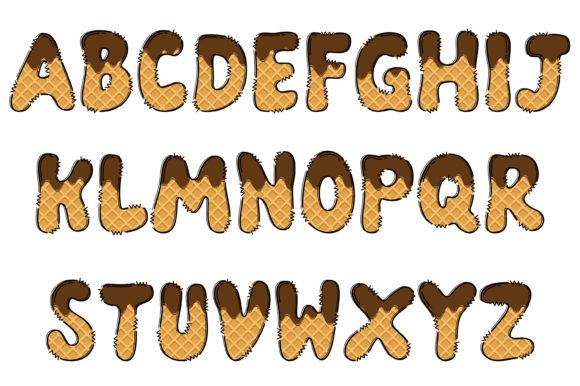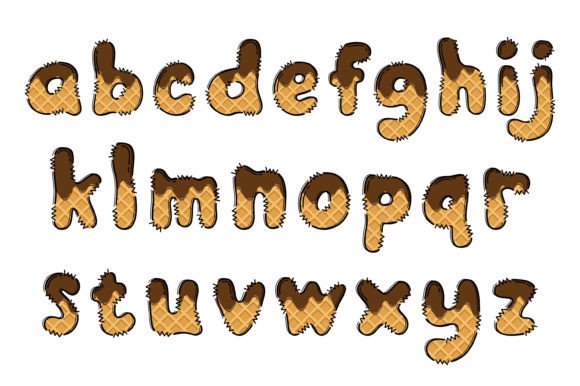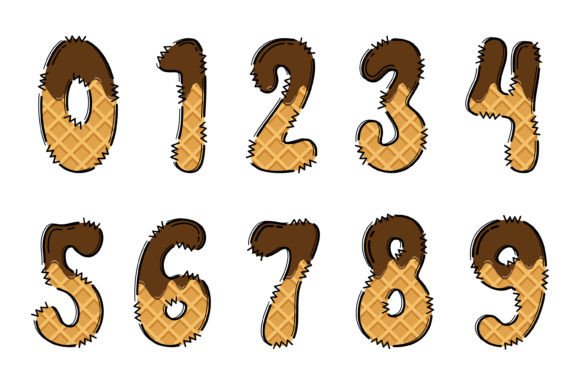
Adding a Scoop of Fun to Your Designs
Do you remember the excitement of creating a colorful poster for your child’s birthday party or designing a whimsical invitation for a friend’s wedding? Those moments of creative freedom are what make being a designer so rewarding.
One font that can bring a smile to your face and add a playful touch to your designs is the Ice Cream Font. This delightful font is designed to evoke a sense of fun and playfulness, making it perfect for children’s books, posters, invitations, and greeting cards. Whether you’re a seasoned designer or just starting out, the Ice Cream Font is a valuable addition to your toolkit.
Ice Cream Font Key Features
- Unique Characteristics: The Ice Cream Font features a unique, hand-drawn design with a playful and whimsical feel, making it ideal for creative and casual projects.
Review of “Ice Cream Font”
Overall, I was a bit skeptical about “Ice Cream Font” at first, but after using it in a few projects, I have to say I’m pleasantly surprised. Here’s what I think:
- The playful and whimsical feel of the font is perfect for summer-themed designs or children’s projects.
- The bold and bright colors make it easy to read, even at small font sizes.
- The font is highly customizable, with plenty of options for adjusting the color, size, and spacing.
- The font is a bit too sweet and childish for more professional or serious projects.
- The font doesn’t come with a lot of variations or additional characters, which can limit its versatility.
- The font can look a bit cluttered at larger sizes, so be careful not to overdo it.
Overall, I think “Ice Cream Font” is a great choice for the right project. It’s perfect for playful designs that need a fun and eye-catching font. Just be aware of its limitations and use it wisely.
Tips for Getting the Most Out of the Ice Cream Font
Use the Ice Cream Font to add a playful and whimsical touch to your designs. Pair it with bright colors and bold graphics to create eye-catching visuals. Experiment with different font sizes and styles to create visual interest.
The Ice Cream Font is perfect for:
– Food-related designs, such as ice cream shop logos or dessert menus.
– Children’s party invitations or decorations.
– Social media graphics or blog posts about food or lifestyle.
Alternatives to “Ice Cream Font” for Designers